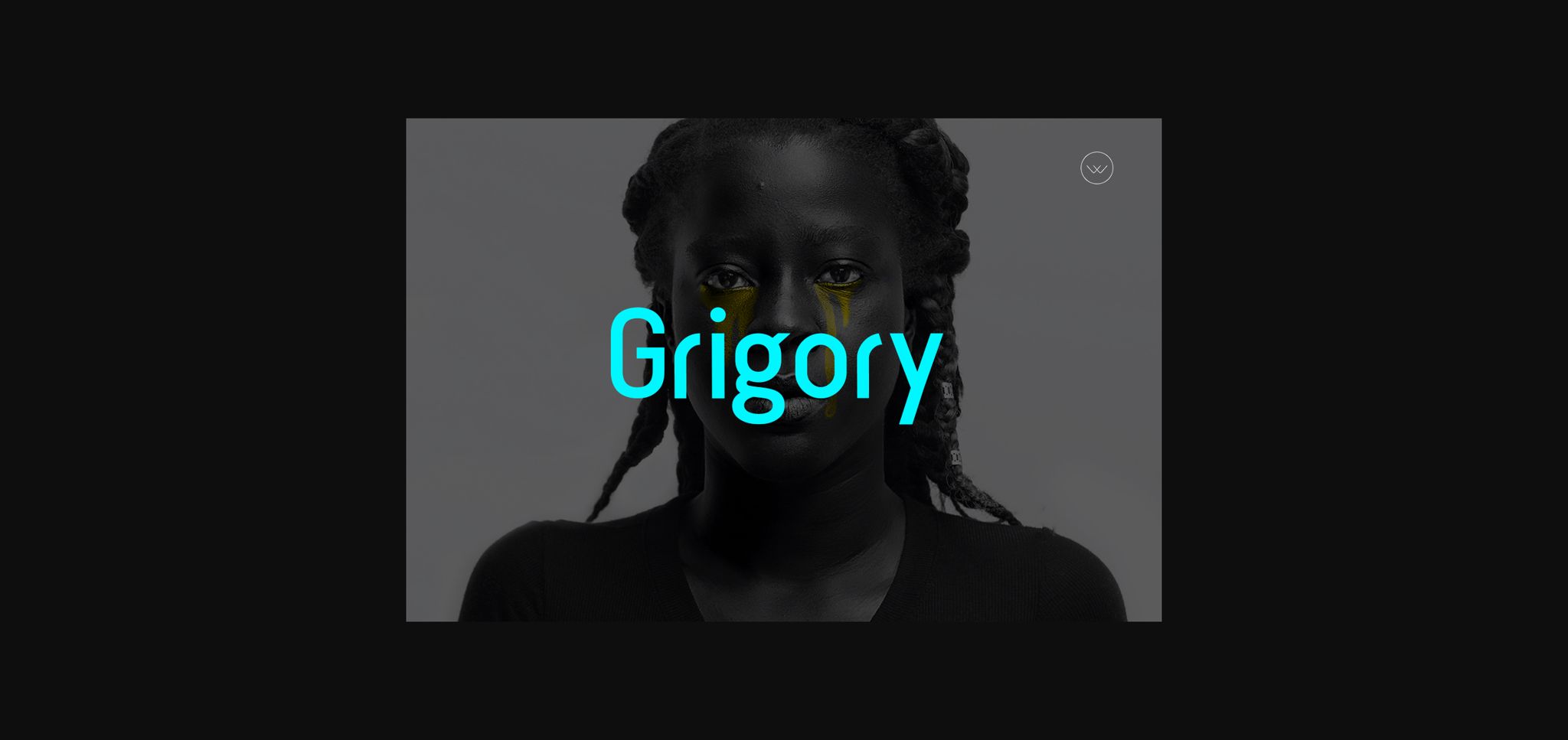
About Grigory Font
Grigory is a modern sans serif font. It is suitable for any branding that requires a minimalist approach, product packaging, invitation, quote, t-shirt, label, poster, logo that you wish to develop.